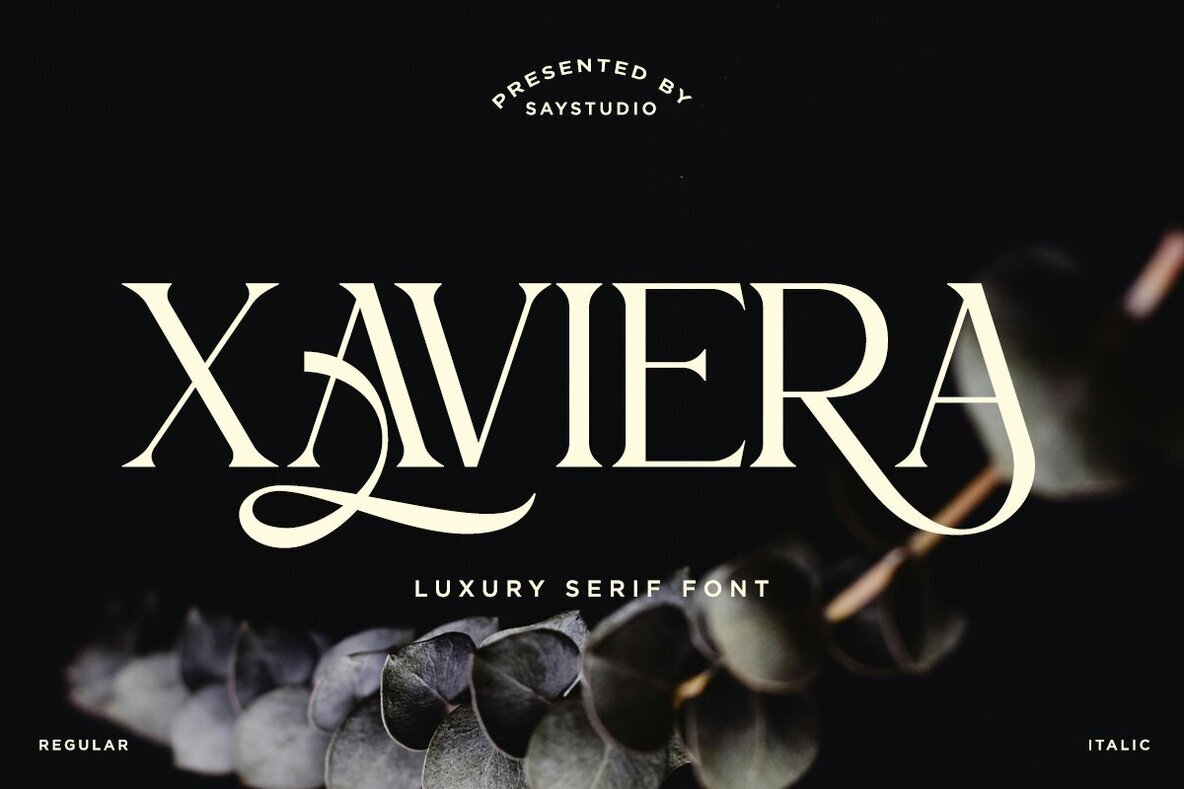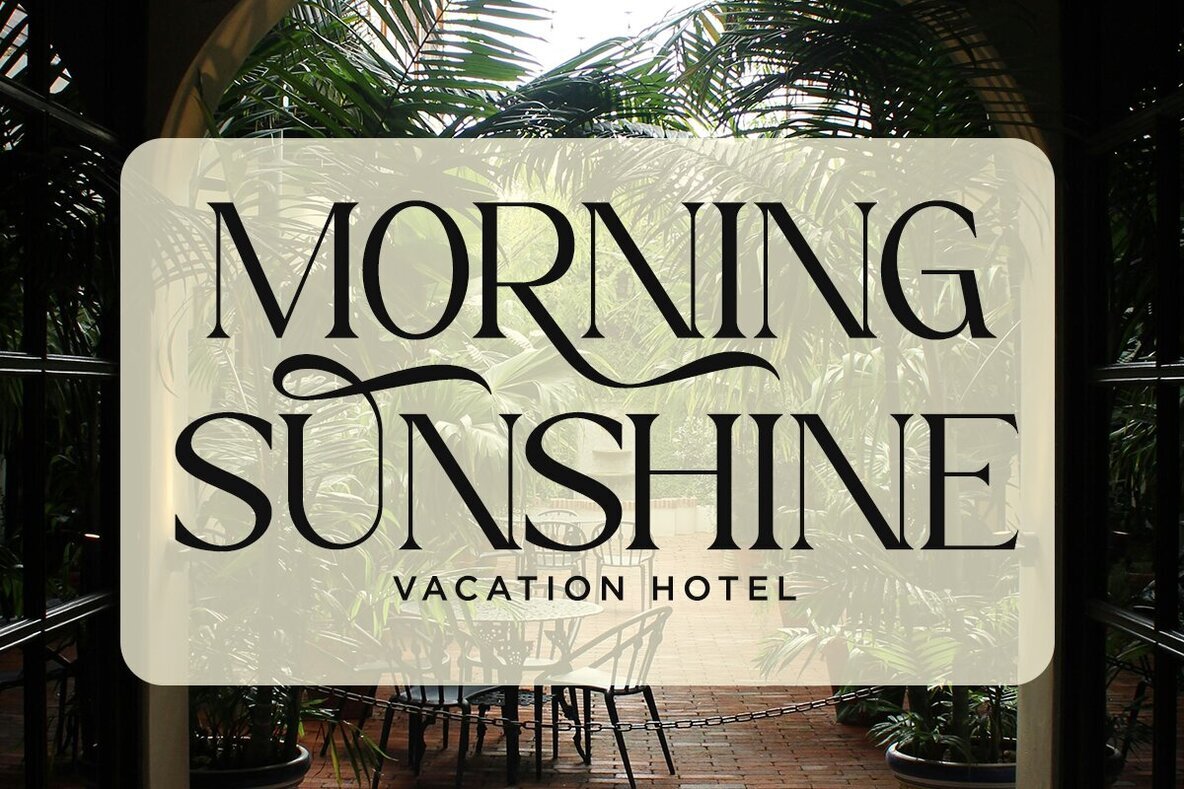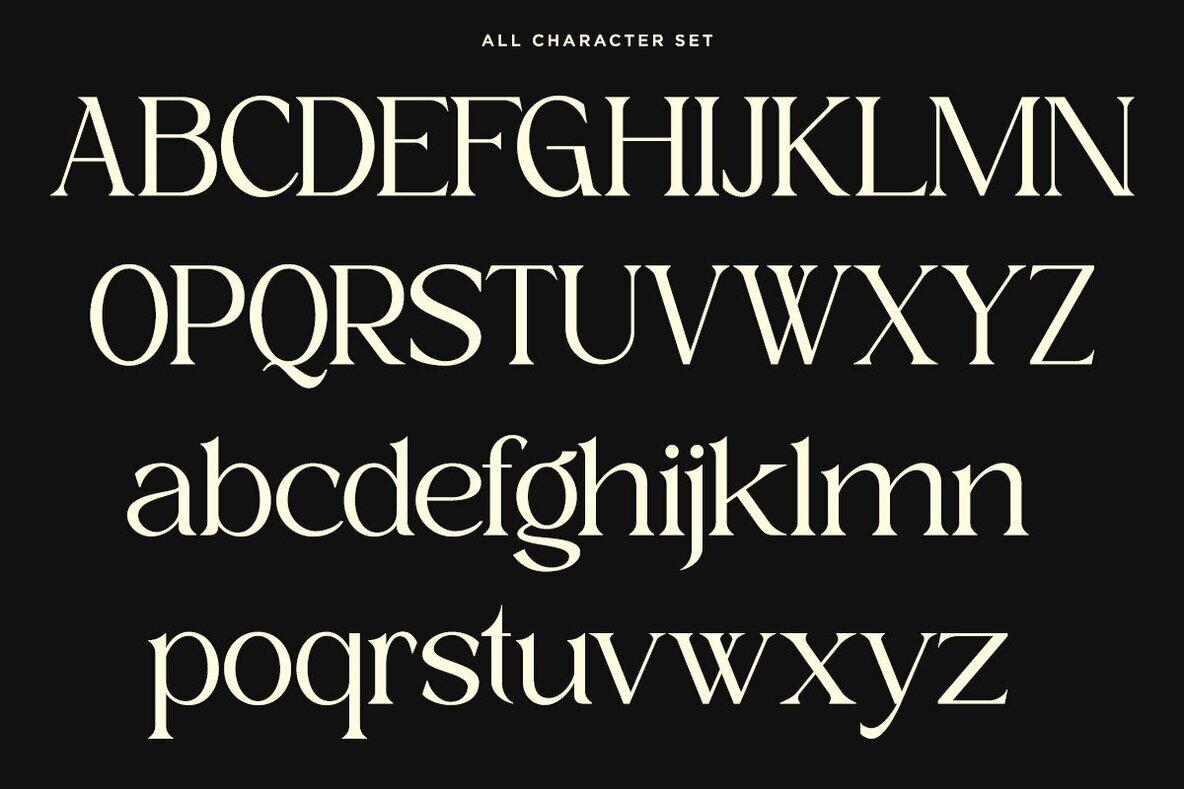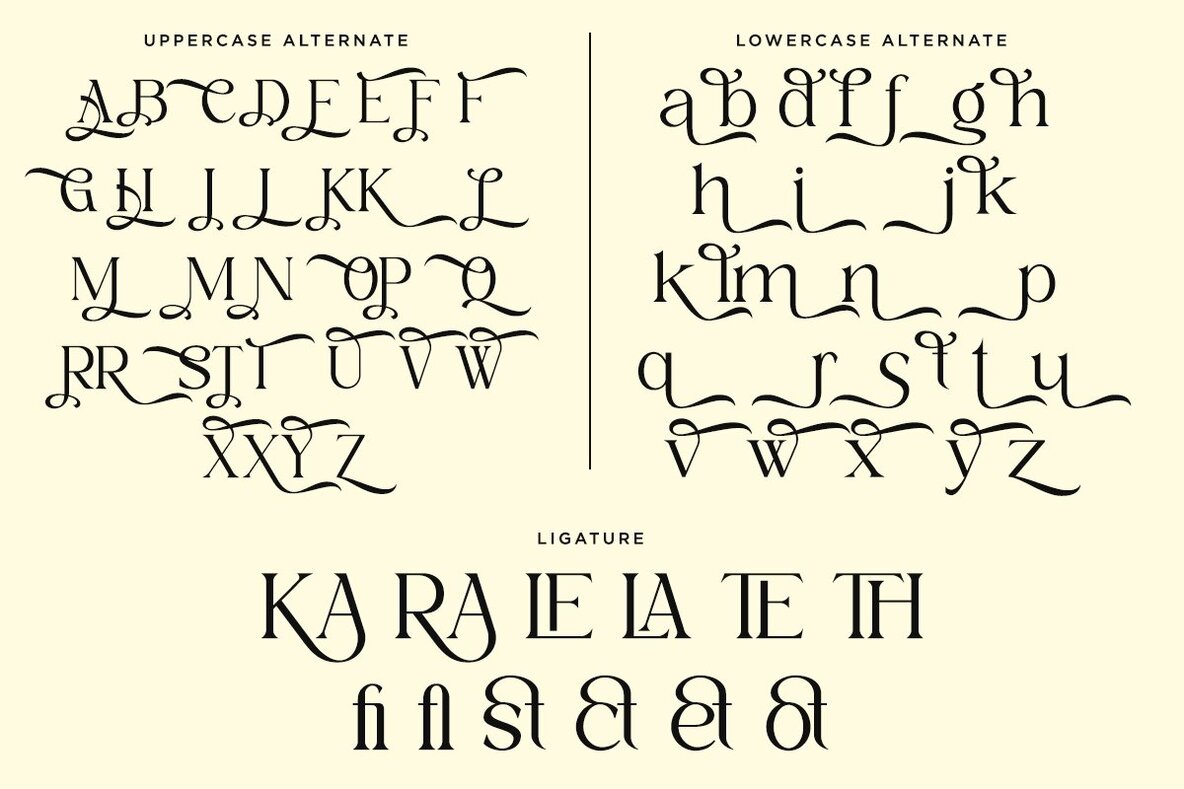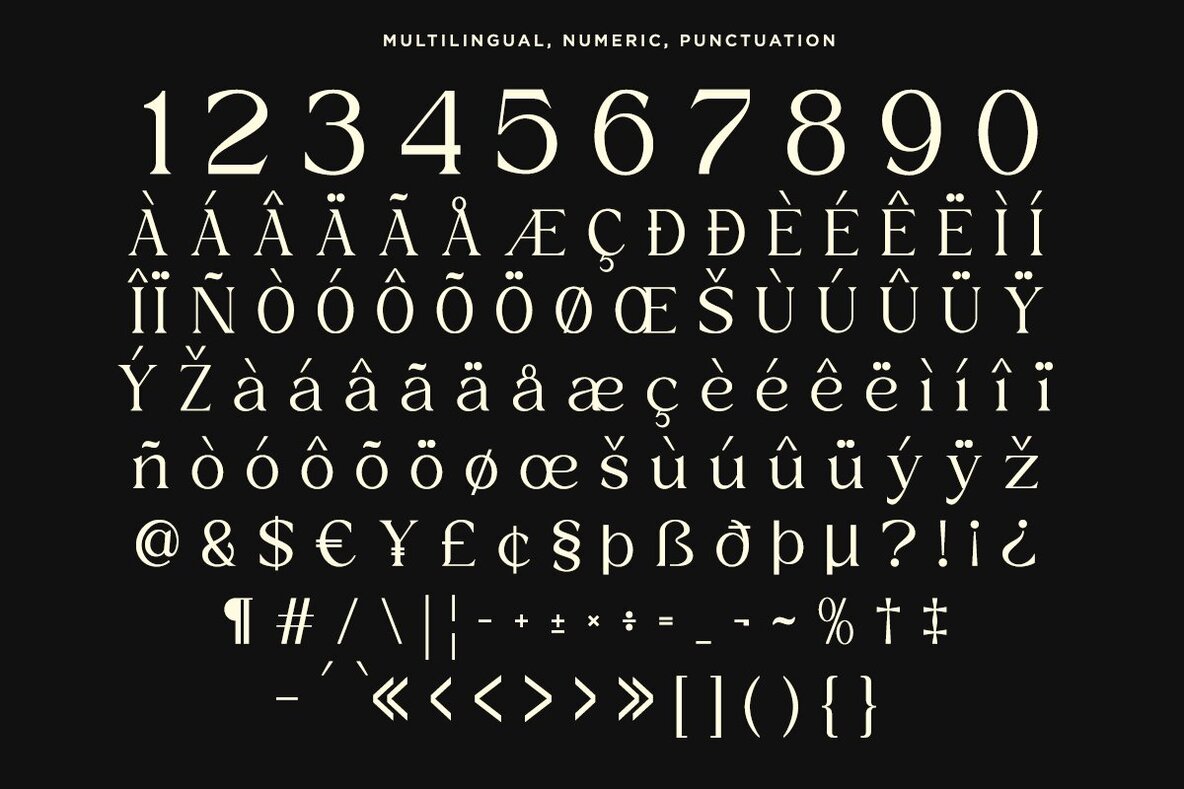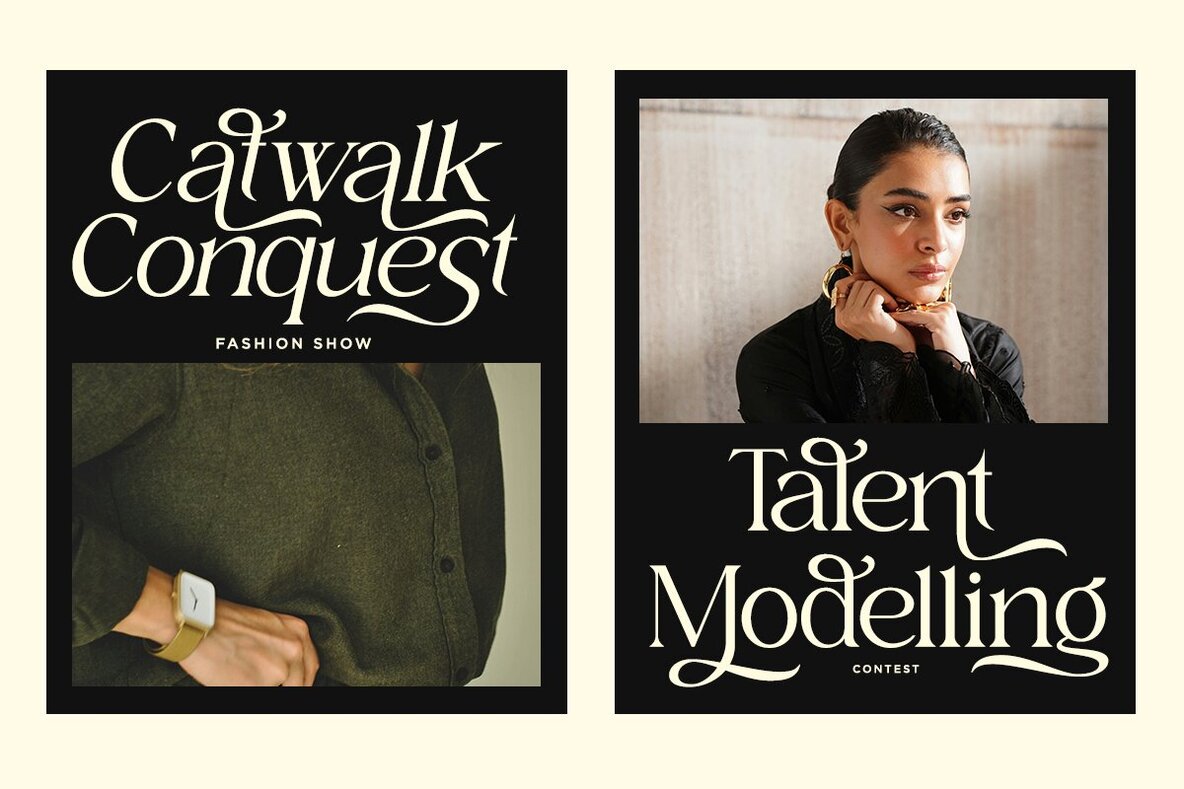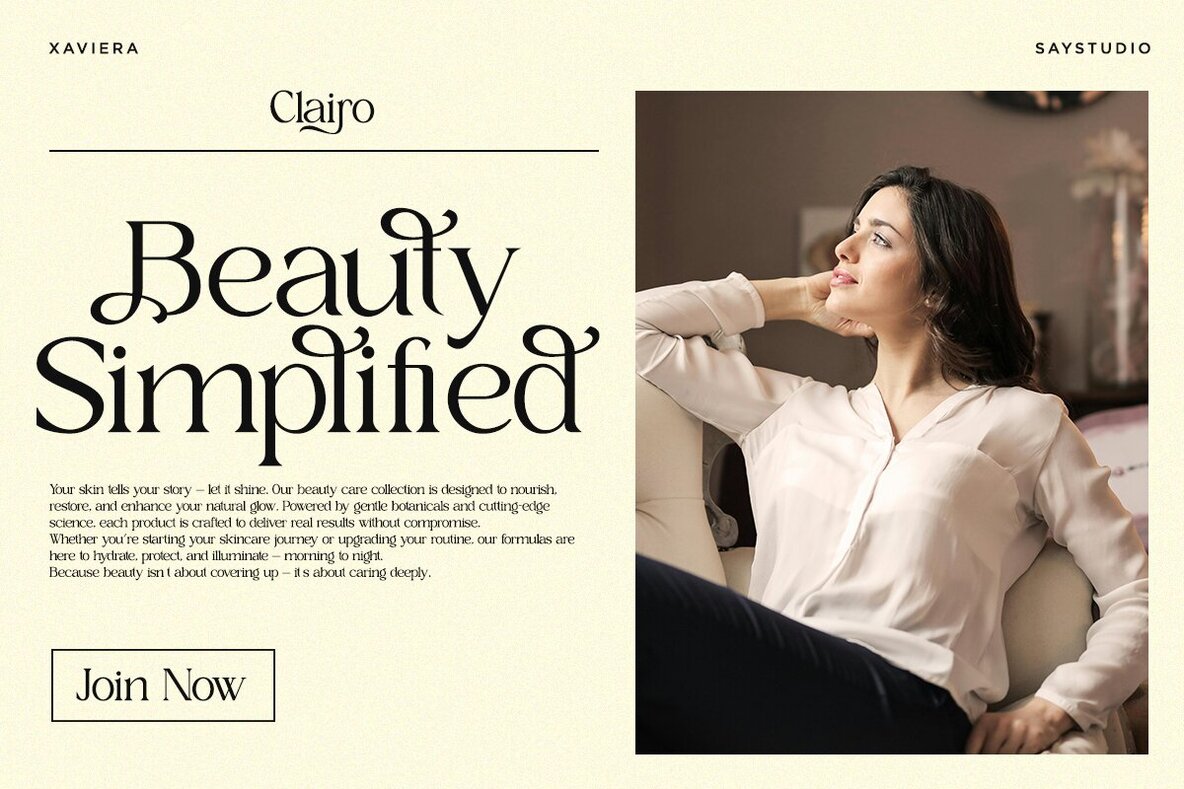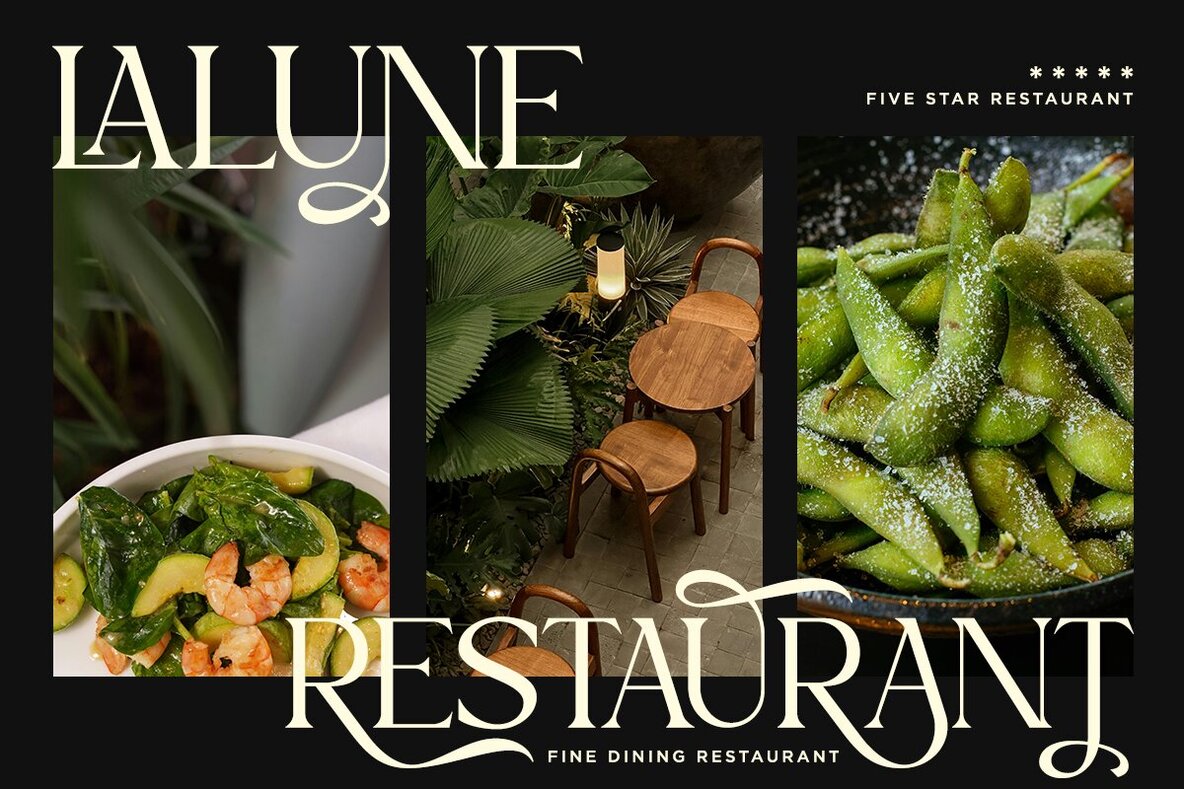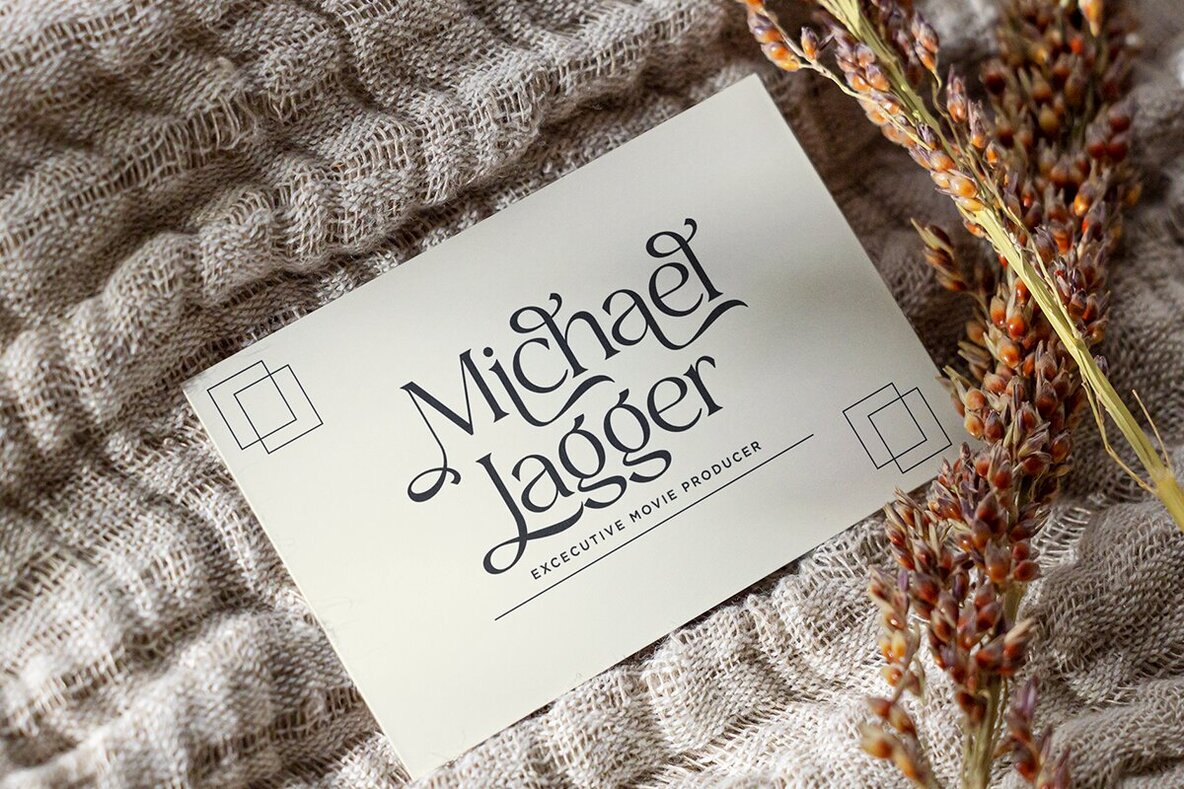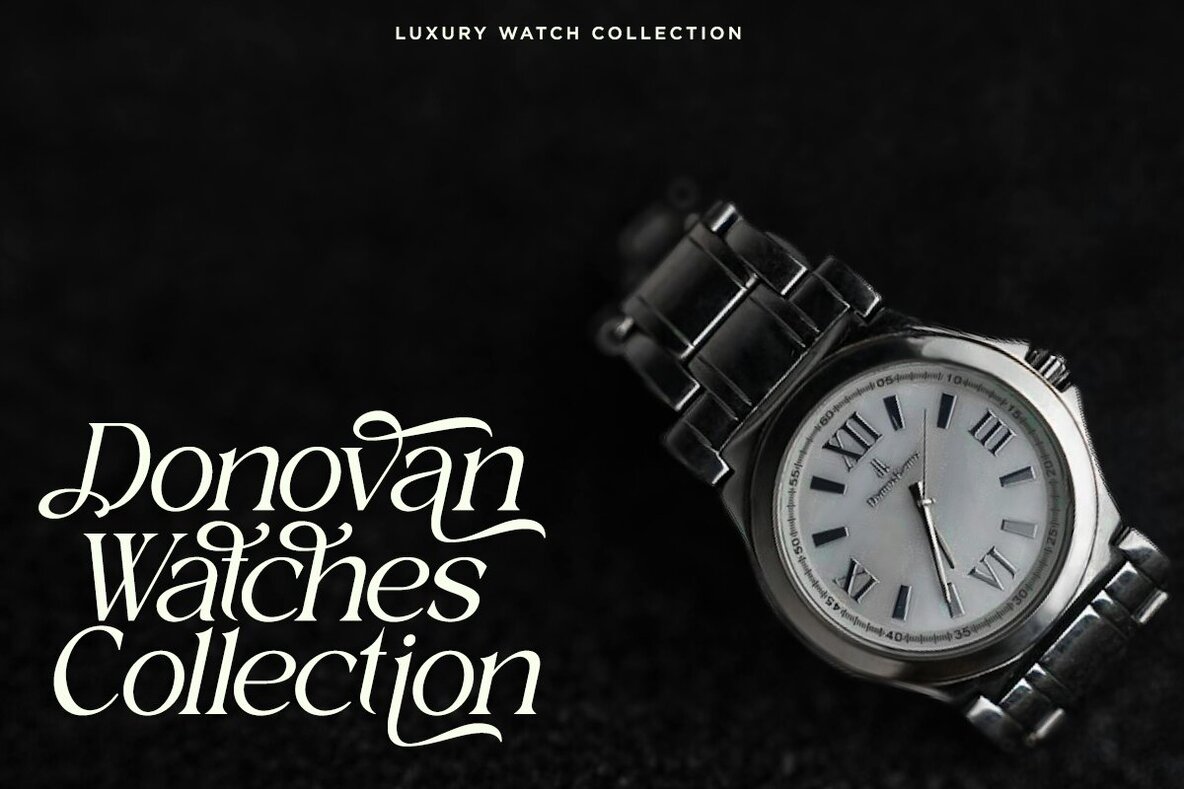
Xaviera Font
Xaviera Regular
Xaviera Italic
Meet Xaviera, the font that effortlessly blends modern elegance with a timeless sophistication. Perfect for enhancing premium branding projects, Xaviera features refined curves and stylish details, making it an excellent choice for logos, invitations, and marketing materials that demand elegance. With Xaviera, your designs will convey class, confidence, and enduring appeal.Xaviera